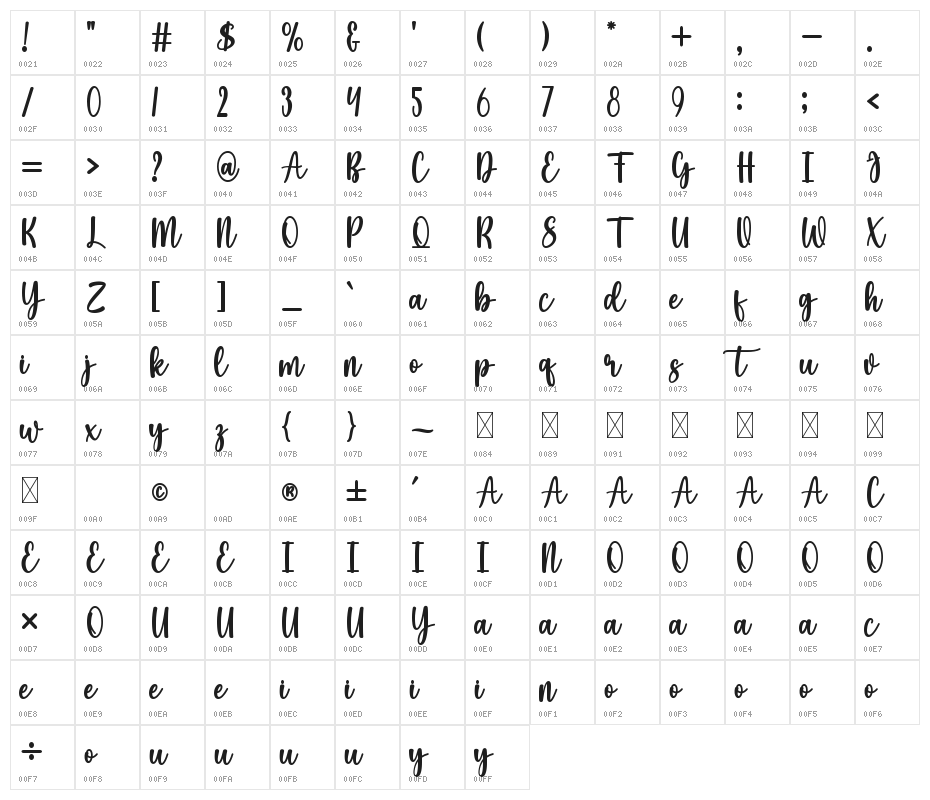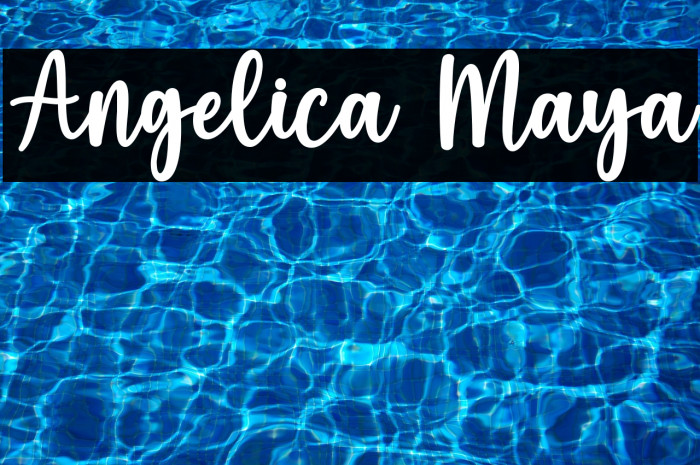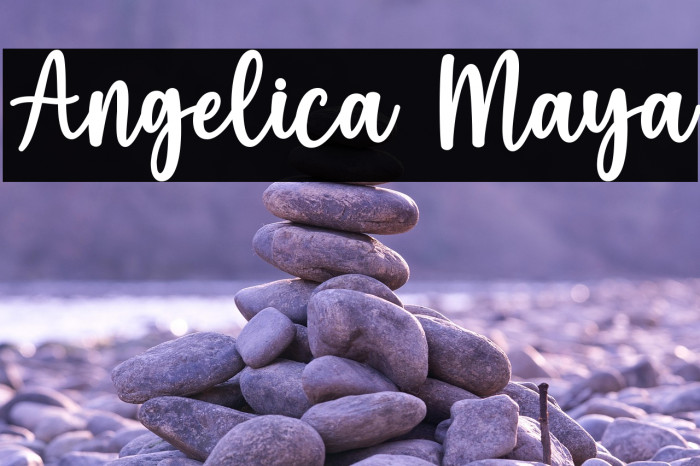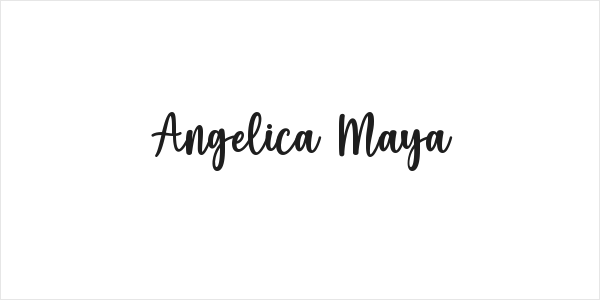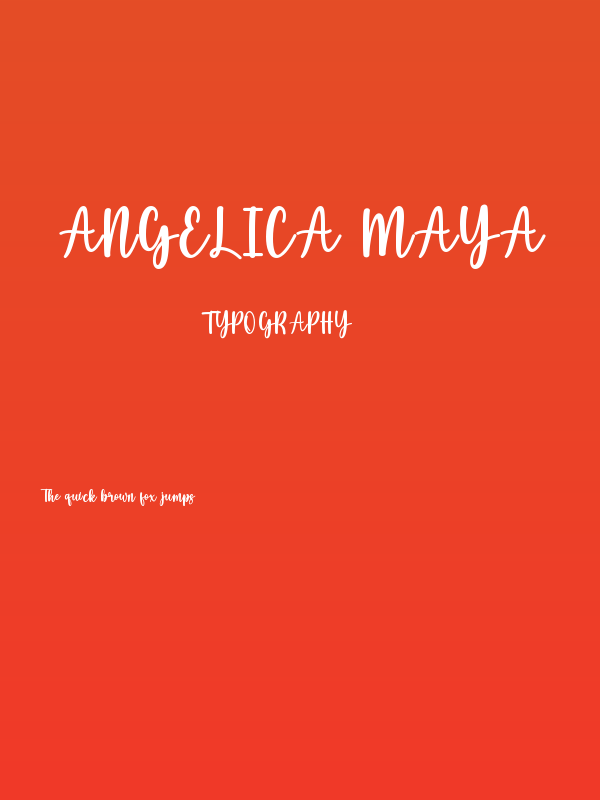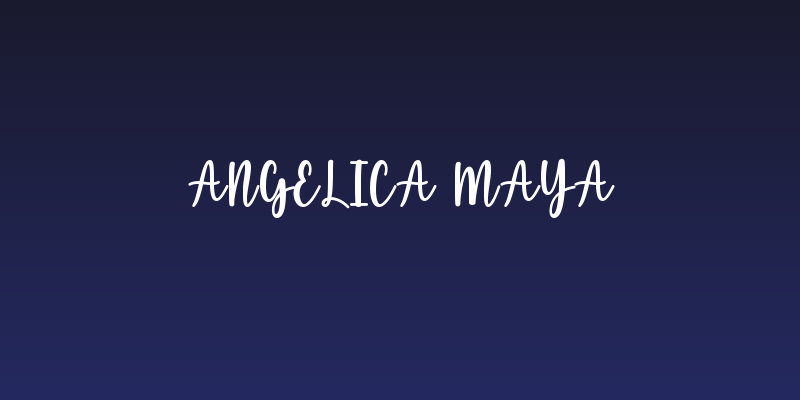
Angelica Maya Font
Angelica Maya Description
This font features a playful and dynamic script style with a handwritten appearance. The uppercase letters are tall and slightly slanted, giving a sense of movement and fluidity. The lowercase letters maintain a consistent flow, with some characters featuring loops and curls that add to the whimsical nature of the font. The numbers are clear and legible, matching the overall style with slight variations in thickness. Special characters are well-integrated, maintaining the playful and casual aesthetic. This font is ideal for projects that require a personal touch, such as invitations, greeting cards, or branding materials that aim to convey warmth and approachability.
| Proposed Projects | Ideal for invitations, greeting cards, personal branding, and creative projects. |